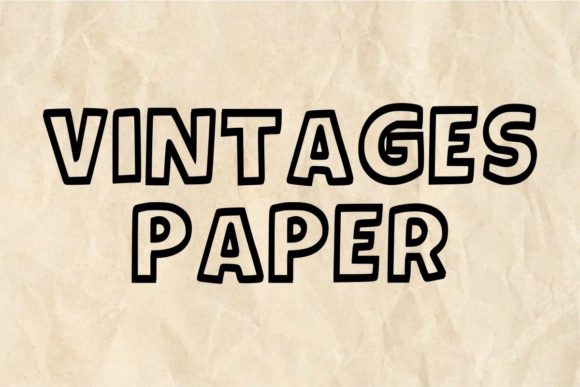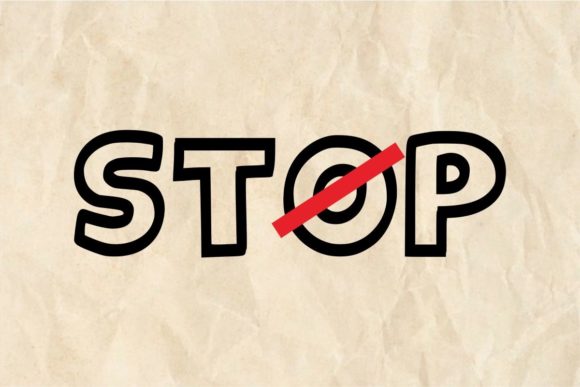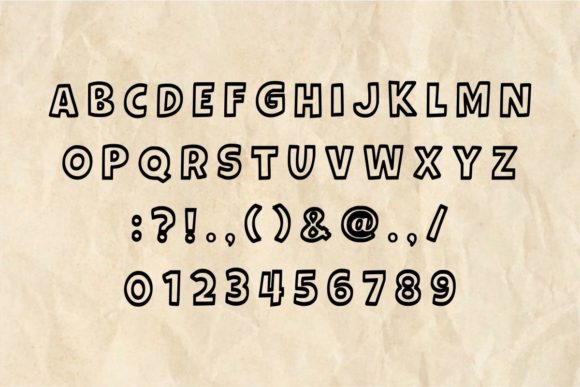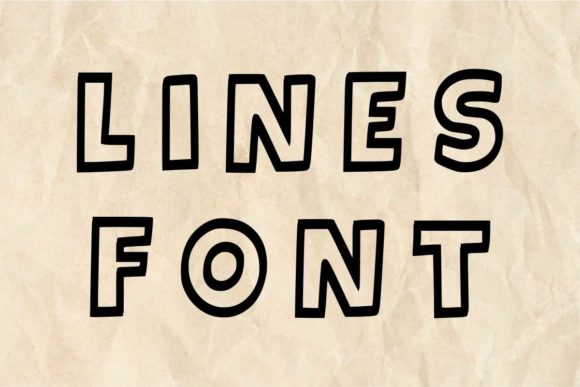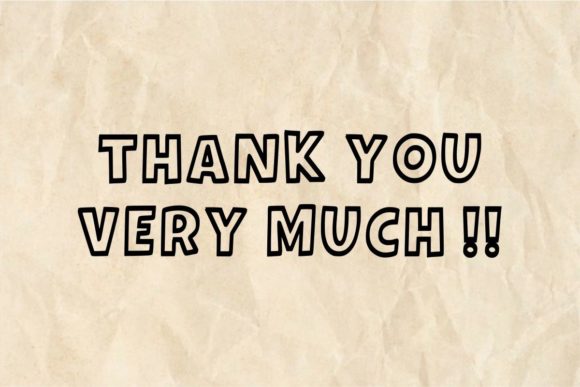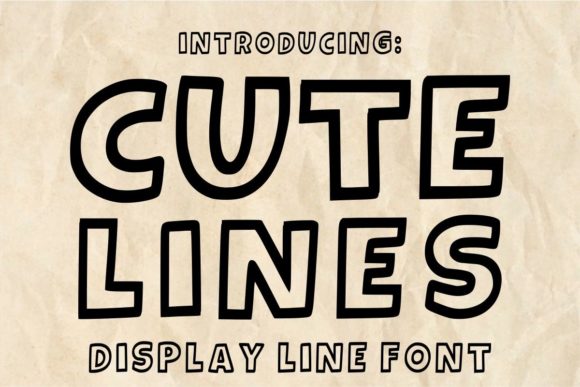
Cute Lines Font: The Ultimate Display Font for Friendly Designs
Are you tired of using the same old fonts for your designs? Look no further! Cute Lines Font is here to add a touch of friendliness and playfulness to your projects. This neat outlined display font is easy-to-read and perfect for a variety of applications, from crafts and digital design to presentations and greeting cards.
What Makes Cute Lines Font So Special?
Cute Lines Font is designed to convey impeccable friendliness, making it an ideal choice for designers and crafters who want to add a personal touch to their work. Its outlined design gives it a unique and modern look that’s sure to grab attention. Whether you’re creating a DIY project, a social media graphic, or a presentation, this font is sure to become your go-to choice.
Perfect for Crafters and Designers
Cute Lines Font is a versatile font that’s perfect for crafters and designers alike. Its easy-to-read design makes it ideal for:
- Crafts: Use Cute Lines Font to add a personal touch to your DIY projects, such as handmade cards, scrapbooking, and other paper crafts.
- Digital Design: Add a friendly touch to your digital designs, including social media graphics, blog posts, and website headers.
- Presentations: Make your presentations more engaging and fun with Cute Lines Font. It’s perfect for titles, headings, and bullet points.
- Greeting Cards: Create personalized and adorable greeting cards for special occasions, such as birthdays, holidays, and weddings.
Why Choose Cute Lines Font?
There are many reasons why Cute Lines Font should be your top choice for friendly designs:
- Easy-to-Read: The font’s outlined design and clear lines make it easy to read, even at small sizes.
- Versatile: Cute Lines Font can be used for a wide range of applications, from crafts to digital design.
- Unique: The font’s modern and outlined design sets it apart from other fonts, making your designs stand out.
- Friendliness: Cute Lines Font conveys a sense of friendliness and approachability, perfect for designs that need a personal touch.
Tips for Using Cute Lines Font
Here are some tips for getting the most out of Cute Lines Font:
- Pair it with Other Fonts: Combine Cute Lines Font with other fonts to create a unique and visually appealing design.
- Experiment with Colors: Try out different colors and color combinations to add depth and interest to your designs.
- Use it for Headings: Cute Lines Font is perfect for headings and titles. Use it to add a friendly touch to your designs.
Cute Lines Font is a versatile and friendly display font that’s perfect for designers and crafters. Its easy-to-read design, unique outlined style, and impeccable friendliness make it an ideal choice for a wide range of applications. Whether you’re creating a DIY project, a digital design, or a presentation, Cute Lines Font is sure to become your go-to font. So why wait? Give Cute Lines Font a try today and add a touch of friendliness to your designs!